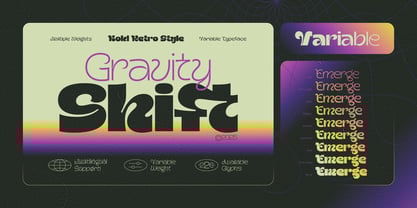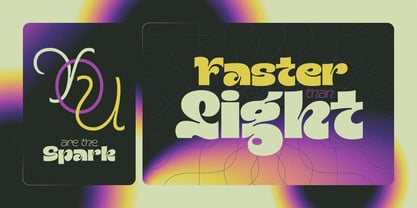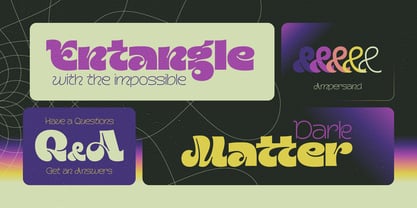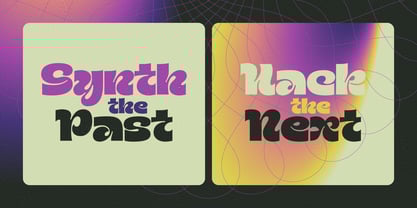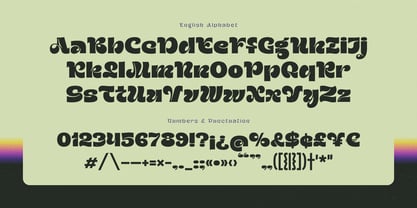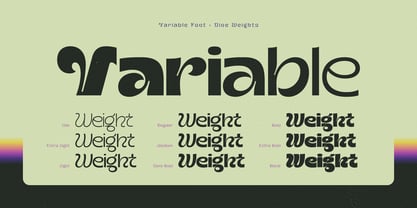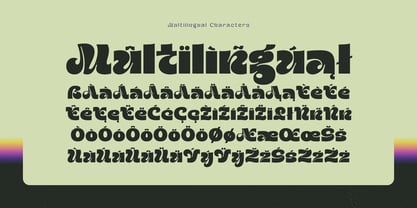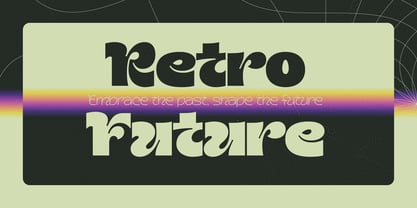
Gravity Shift
by Gleb Guralnyk
The Gravity Shift Font Family was designed by Gleb Guralnyk and published by Gleb Guralnyk. Gravity Shift contains 10 styles and family package options.
Gravity Shift is a retro-futuristic variable font with a bold yet elegant shape. Inspired by science-age design it shifts effortlessly between light and heavy styles. Perfect for sci-fi themes, bold branding, and vintage tech aesthetics, it balances strength with sophistication.
Gravity Shift font family set includes 9 typefaces with different weights from Thin to Black. Variable version includes all of the above mentioned types. Gravity Shift has multilingual support, check out a screenshot with available characters.